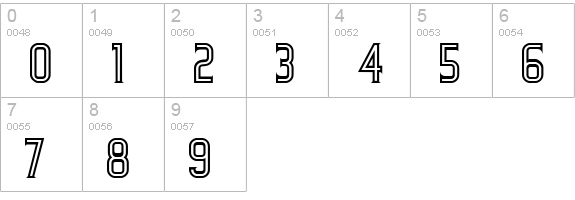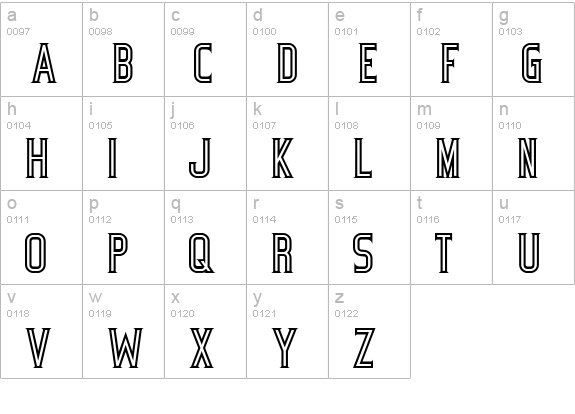
Introducing Bicycle font - a sleek and modern typeface perfect for all your design needs. This versatile font features clean lines and a contemporary style that is sure to make your projects stand out. Whether you're working on branding, packaging, or web design, Bicycle font has you covered with its unique character and charm. What's even better is that Bicycle font is completely free to download at FontsMarket.com! Yes, you read that right - this amazing font is available for you to use in your personal and commercial projects without any cost. So why wait? Give your designs a fresh and trendy look with Bicycle font today!